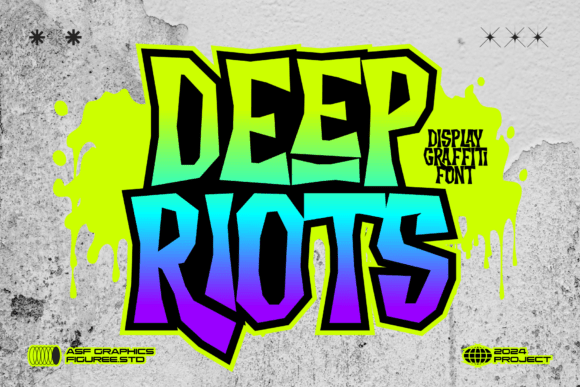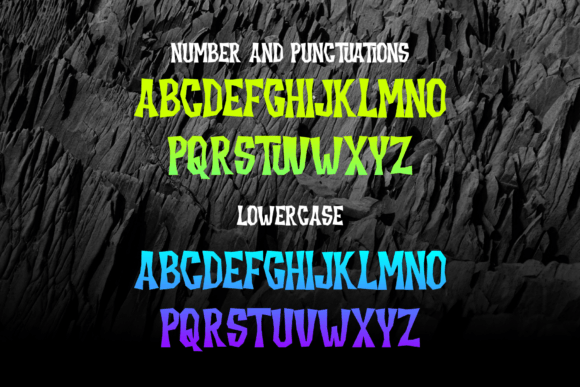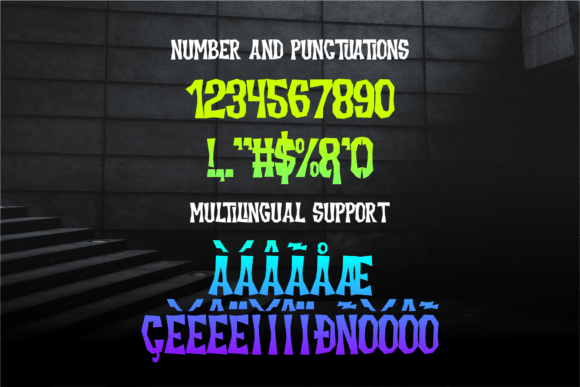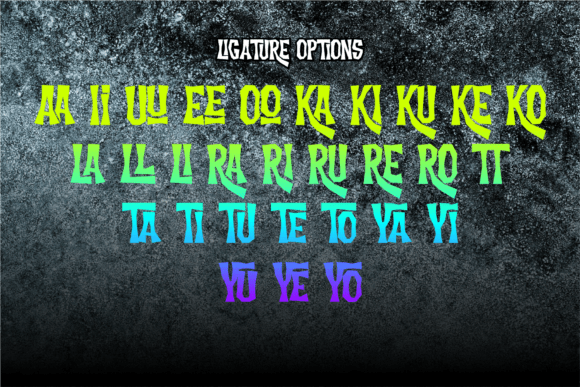
Deep Riots Font: Bold Graffiti Typography for Streetwear & Posters
About the Deep Riots Font
Make a bold statement with Deep Riots Font, a powerful and memorable font. Introducing “Deep Riots”, a gutsy graffiti-style font oozing with defiant spirit. This typeface is an ideal match for street-fashion, music-themed graphics, and city-centric creations. Immerse your work in unrefined charm and make a striking impact that echoes metropolitan vibes. With “Deep Riots”, your message becomes an audacious statement that’s untamed, unique, and eternally etched in memory. Multilingual conversion and taglines available upon request.
Deep Riots excels in headlines, posters, and short, impactful branding elements where its bold, rebellious character shines. It’s ideal for projects conveying street style, urban culture, or a sense of raw energy. Avoid using it for body text or UI elements; its irregular forms hinder readability in extended passages.
Pairing Deep Riots with a clean sans-serif like Montserrat or a geometric sans-serif like Futura creates a strong contrast, balancing its raw energy with a sense of order. For a more sophisticated feel, consider pairing it with a classic serif like Garamond, allowing the Deep Riots to stand out as a powerful accent.
The font’s core personality is undeniably bold and rebellious, conveying a sense of urban grit and defiance. It’s perfect for brands and projects seeking to project an edgy, street-smart image.